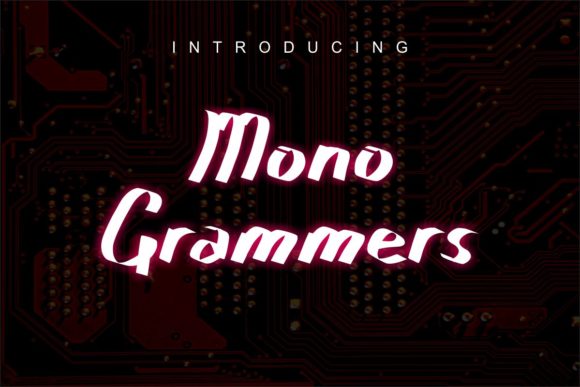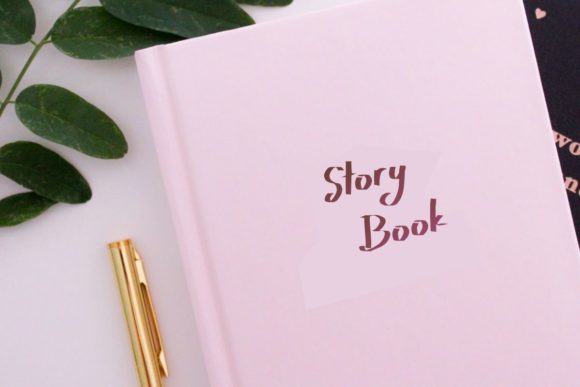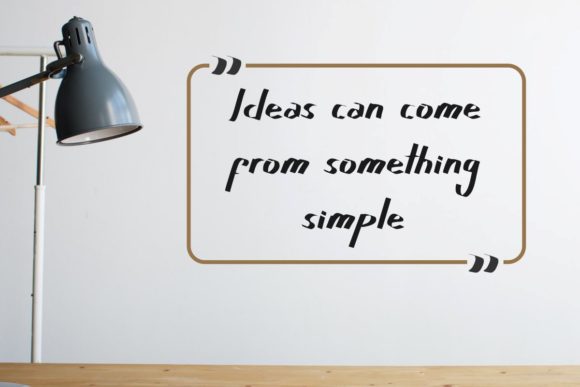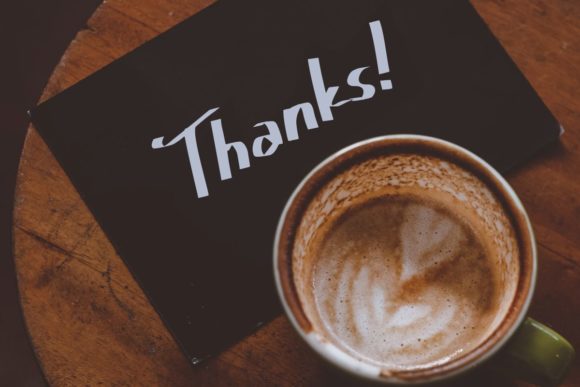
Mono Grammers Font
About Mono Grammers Font
Mono Grammers is a daring handwritten font that exudes a genuine and unique look. With its distinctive style, this font adds a touch of creativity and individuality to a wide range of crafty projects. From letterheads and titles to stationery, Mono Grammers is sure to make your designs stand out.
The handwritten nature of Mono Grammers brings a sense of authenticity and personality to your creations. Each letter carries its own unique flair, giving your designs a handcrafted and artistic feel. Whether you’re designing personalized stationery, crafting custom invitations, or creating eye-catching titles, Mono Grammers adds a bold and daring touch.
The versatility of Mono Grammers allows it to be used in various crafty ideas. It can be applied to handmade cards, scrapbooking projects, journaling, and more. The font’s daring and genuine look adds character and charm, making your crafty creations visually captivating.
For letterheads and branding materials, Mono Grammers stands out with its distinct handwritten style. It can be used to create memorable and attention-grabbing logos, adding a unique and artistic touch to your brand identity. The font’s daring and genuine appeal helps your brand make a bold statement and leave a lasting impression.
When it comes to stationery, Mono Grammers adds a touch of creativity and personalization. Whether you’re designing notepads, envelopes, or other paper goods, this font elevates the overall aesthetic and makes your stationery truly special. Its daring and handwritten look brings a sense of originality and style to your designs.
Mono Grammers is not only suitable for printed materials but also digital designs. It can be used in social media graphics, blog headers, and website elements to create an eye-catching and authentic look. Its bold and genuine style grabs attention and adds a unique visual appeal to your digital presence.
In summary, Mono Grammers is a daring handwritten font that adds a genuine and unique look to your crafty projects. Its versatility makes it suitable for a wide range of applications, from letterheads and titles to stationery. Embrace the creativity and individuality of Mono Grammers and let it bring a daring and genuine touch to your crafty ideas.